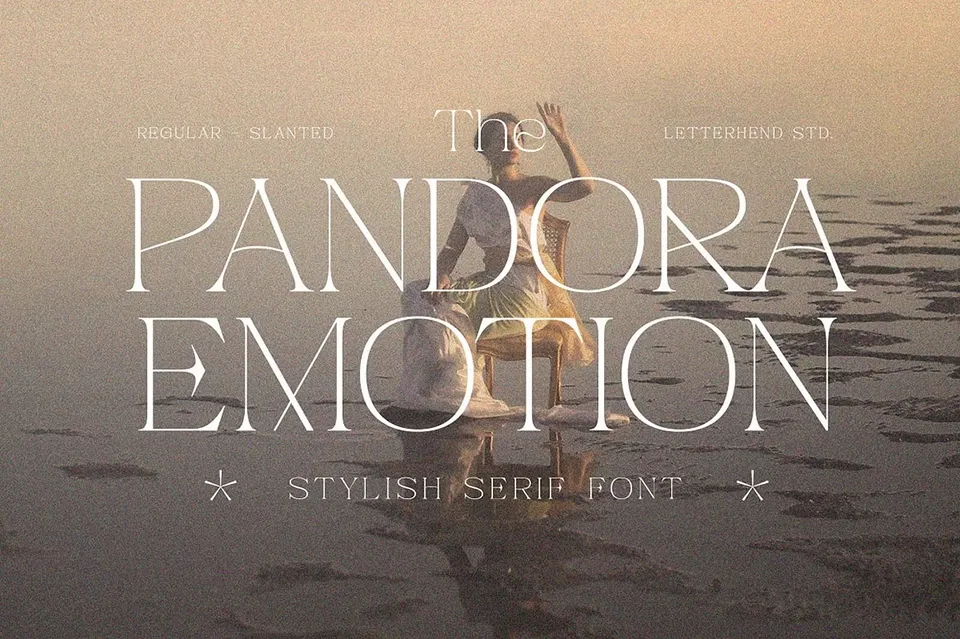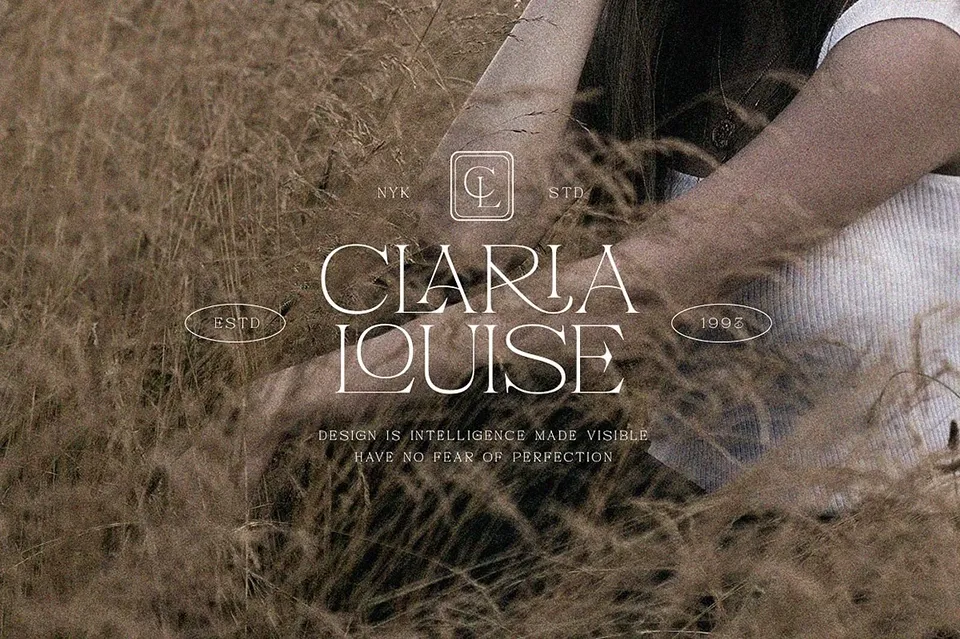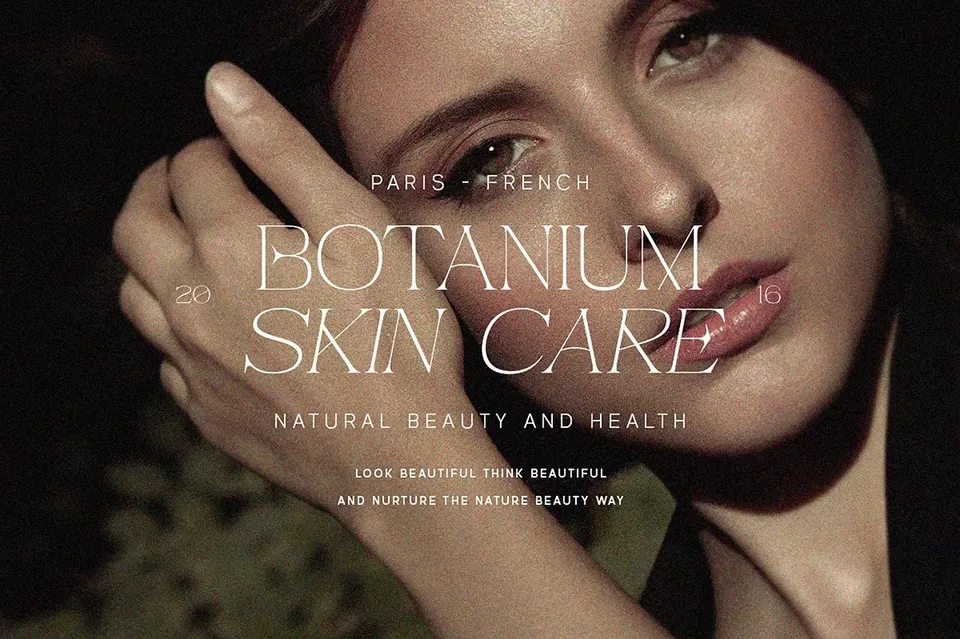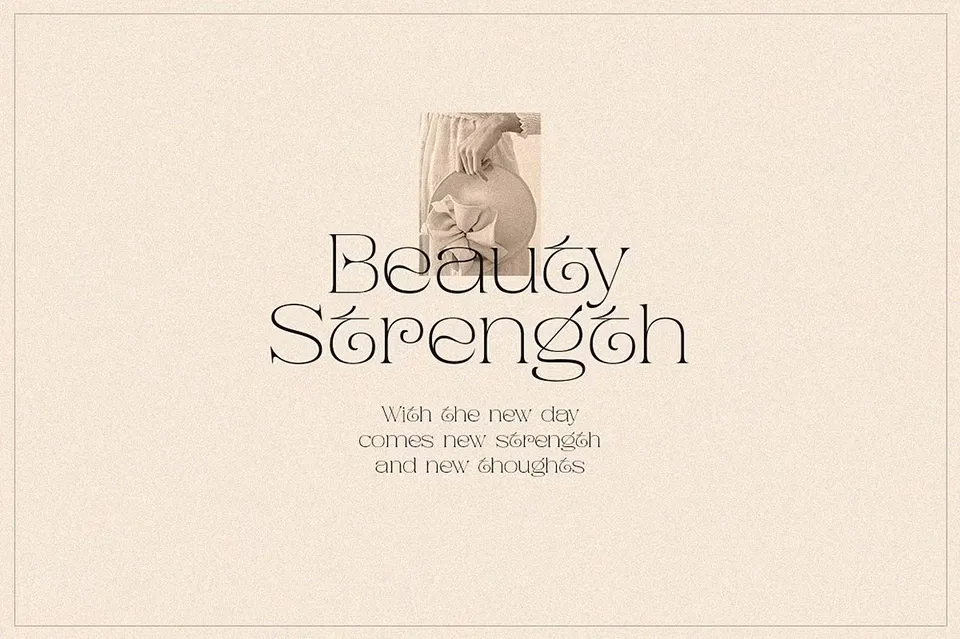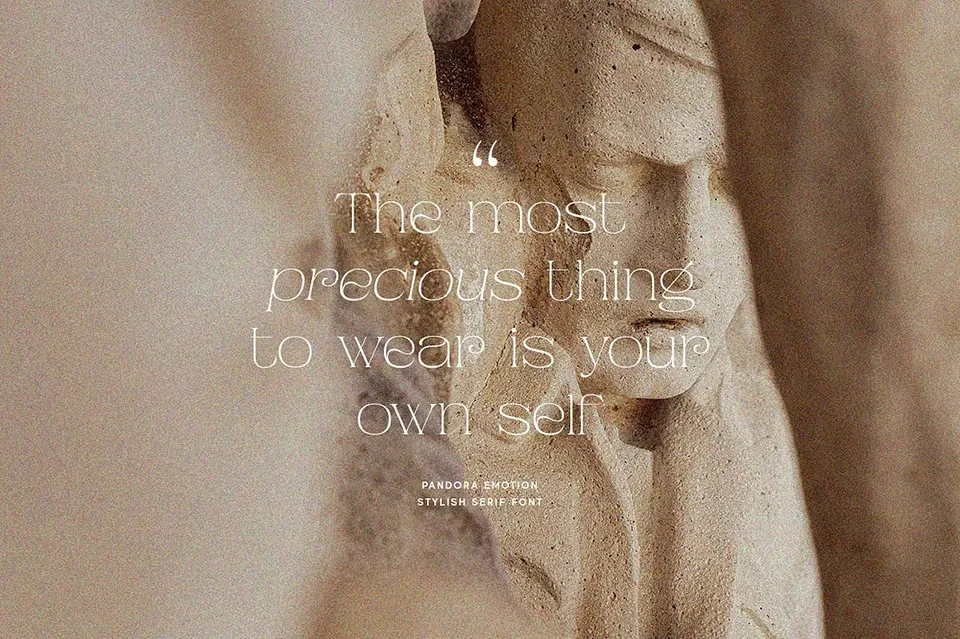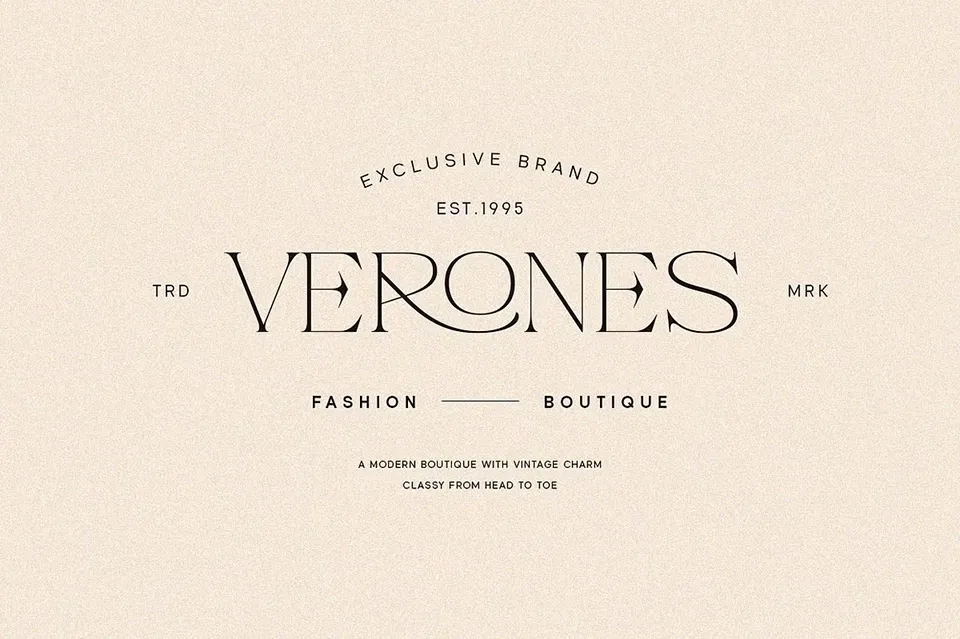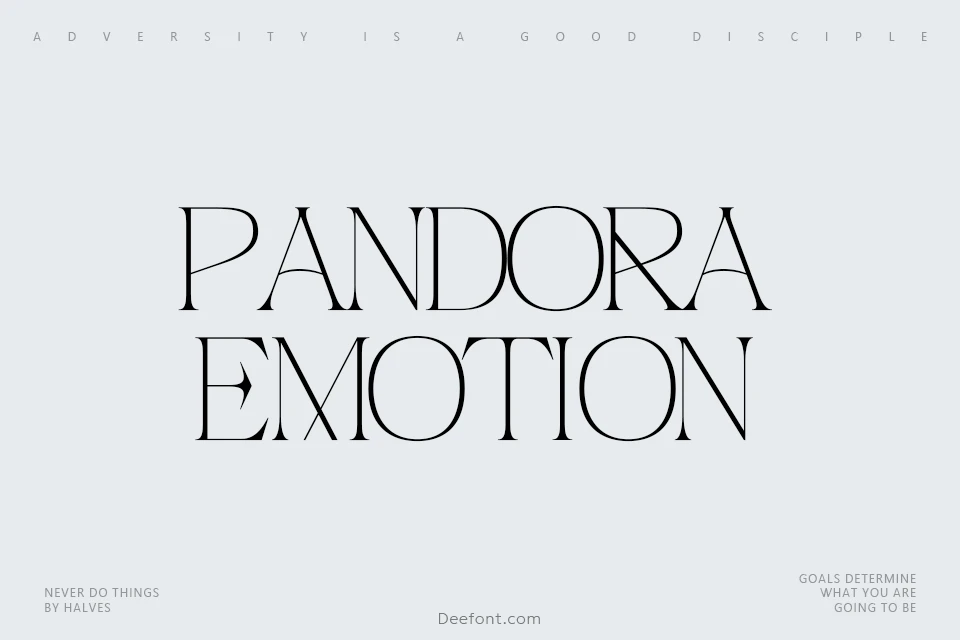
Pandora Emotion Font
Pandora Emotion Font is a stylish serif font crafted by Letterhend Studio, designed to convey a premium and luxurious feel. Carefully constructed with unique ligatures and smooth, balanced letterforms, this typeface stands out from regular serif fonts. It is ideal for logos, headlines, titles, invitations, labels, magazines, books, greeting or wedding cards, packaging, fashion, makeup, stationery, novels, and various advertising purposes. The font supports uppercase and lowercase letters, numbers, punctuation, alternates, ligatures, multilingual characters, and is PUA encoded for easy access to all glyphs.